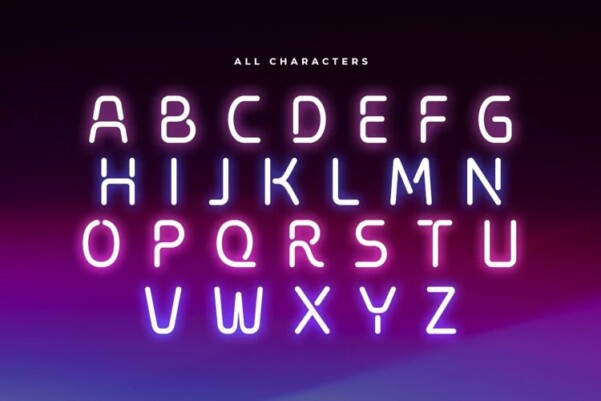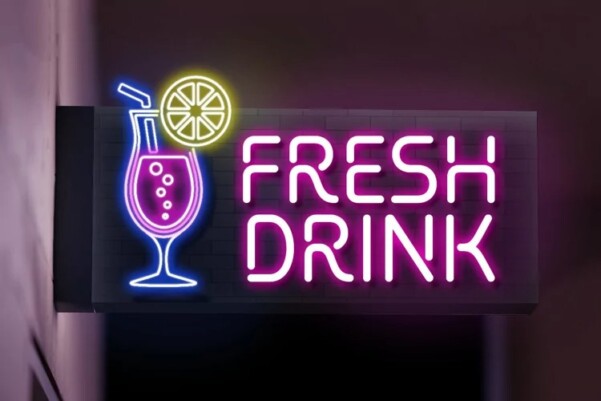
Flare Neon Font
Designer: Sensatype Studio
Flare Neon Font, is Neon Light Party Font with Modern shape make your design look unique and stylish
A new Display Font that we created special for Headline, Title and more stand out typography needs, with extra ligature that will add your variations. It’s so perfect to add your style and headline overview. And specially for this font, we crafted for unique style and modern feels so enjoy to create any project that will show your main idea out.